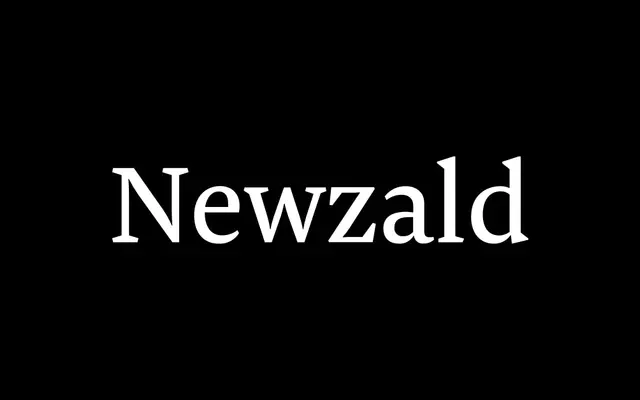
Newzald
Klim Type Foundry · Kris Sowersby · 2008
A hardworking Dutch-rooted text serif with a large x-height and tight forms, drawn for international editorial setting.
A transitional text serif by Kris Sowersby drawing on classic Dutch types by J.F. Rosart and J.M. Fleischman, with a large x-height and slightly condensed forms that fit many words to a column without feeling cramped. Four weights run from Book through Medium and Bold to an emphatic Black, each with a paired italic. Sits well in editorial and longform settings where the serif needs to be economical, legible and quietly characterful at body size.
Klim classifies it as Modern: Transitional/Realist; a hardworking text serif for the international editorial environment, drawing its economical rigour from classic Dutch typefaces by J.F. Rosart and J.M. Fleischman, with a large x-height and slightly condensed forms.